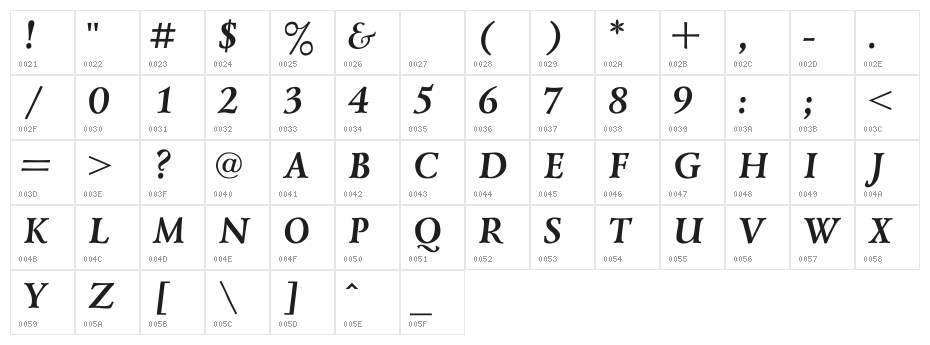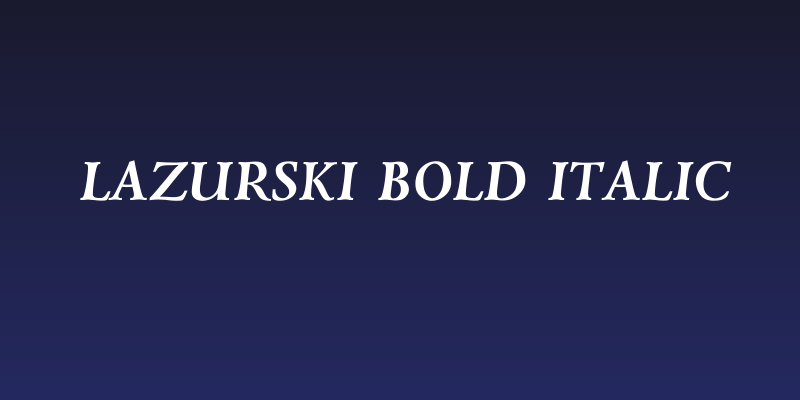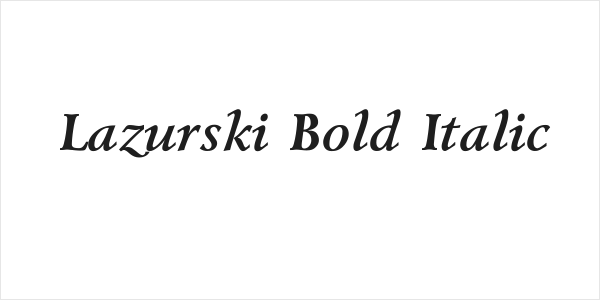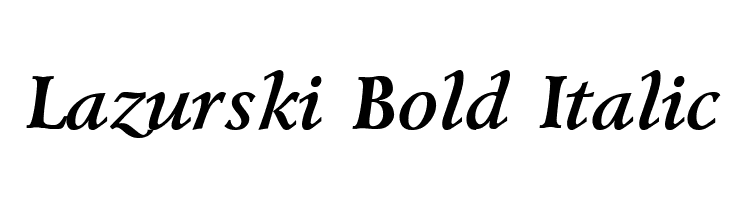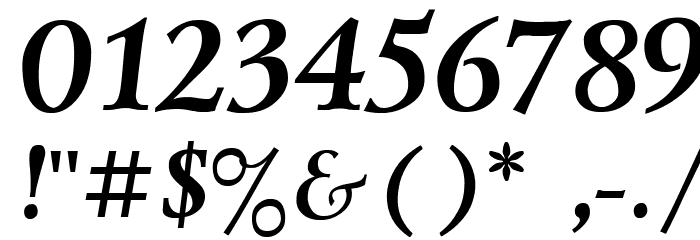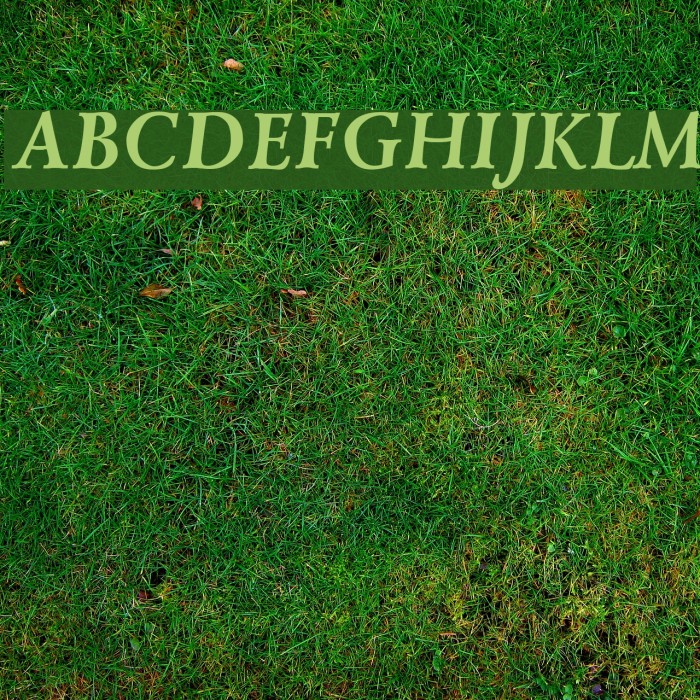
Lazurski Bold Italic Font
Lazurski Bold Italic Description
This font exhibits a classic serif style with a bold and italicized appearance, giving it a dynamic yet traditional look. The letters have a slight slant, enhancing the italic effect, while the bold weight provides a strong presence. The serifs are pronounced, adding to the elegance and readability of the typeface. The overall design is balanced, with moderate contrast between thick and thin strokes, making it suitable for both display and text purposes. The numerals and special characters maintain the same stylistic features, ensuring consistency across all glyphs.
| Overall Style | Classic |
| Use Case | Headlines, Body text, Logos |
| Proposed Projects | Ideal for book covers, editorial design, formal invitations, and branding projects that require a touch of sophistication. |